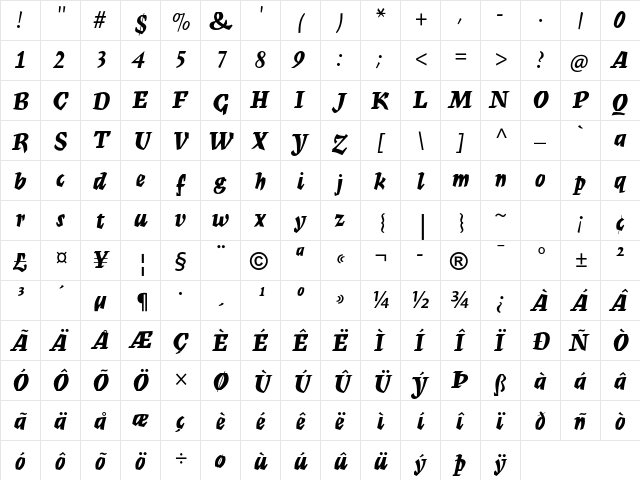
Mercurius MT Std Bold Script Font Preview
| Designer | Imre Reiner |
Design Context for Mercurius MT Std Typeface
Mercurius MT Std brings a calligraphic fluidity to the page — its connecting strokes and expressive curves give it an unmistakably human quality. The heavy weight commands attention and anchors typographic hierarchies.
Font Pairing: Combine Mercurius MT Std with a simple geometric sans for maximum contrast — the tension between flowing curves and clean structure is a classic typographic pairing.
Pro Tip: Pair Mercurius MT Std with a clean sans-serif for supporting text. The contrast between fluid script and geometric structure creates an elegant typographic hierarchy.